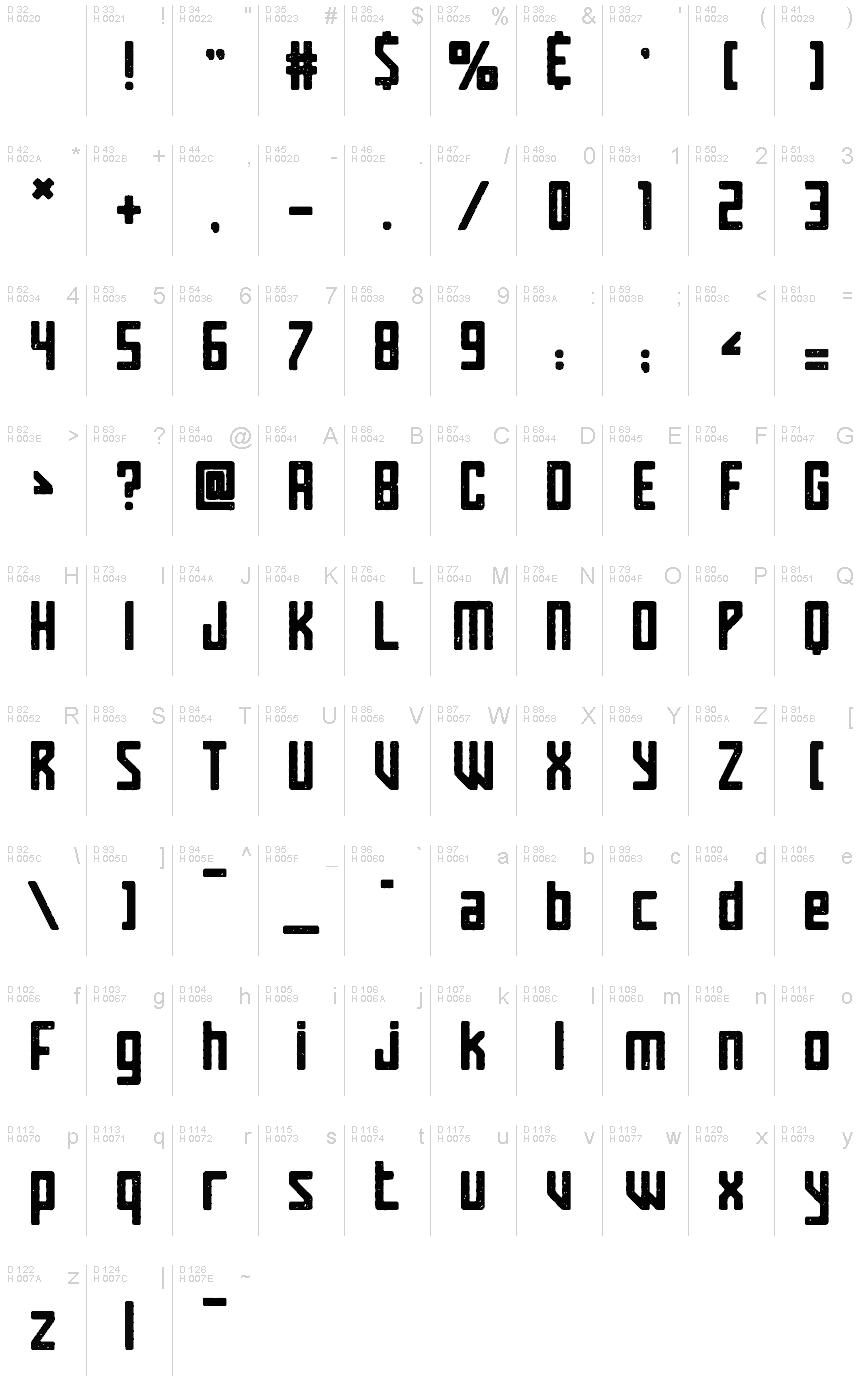
Magician Rings
Magician Rings is a captivating display font that exudes a distinct air of mystery and intrigue. Its condensed, eroded style evokes a sense of weathered charm, evoking the mystical ambiance of a bygone era. The irregular, fragmented letterforms lend the font a raw, edgy character, inviting the viewer to uncover the hidden narratives within.
This font's versatility extends beyond the realm of the occult, making it a compelling choice for a variety of design applications, from editorial layouts to product branding. Its striking visual presence commands attention, making it an ideal selection for headlines, titles, and attention-grabbing elements within any design composition.